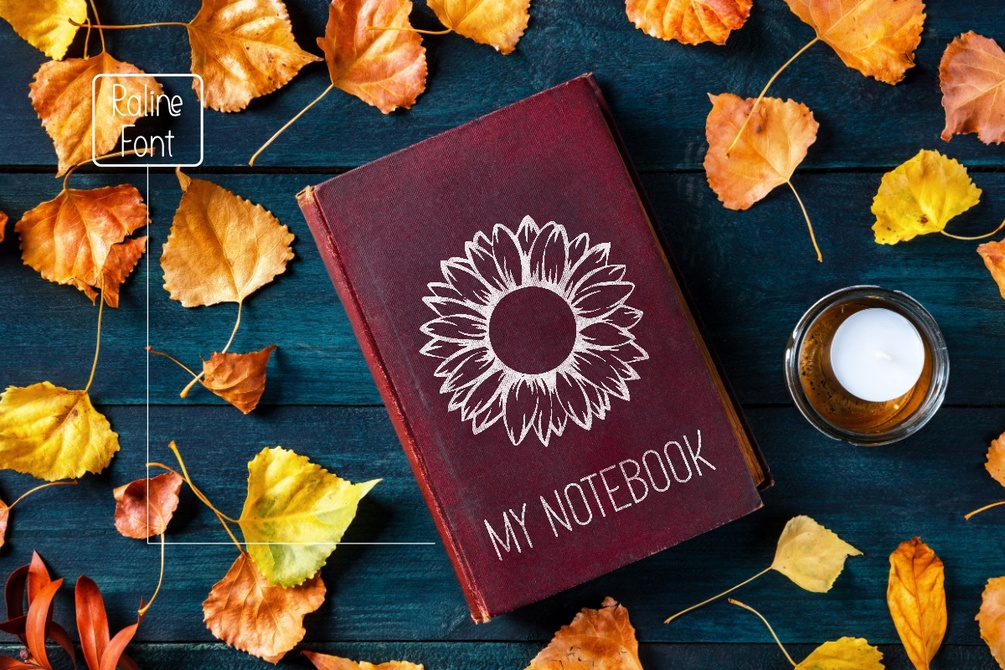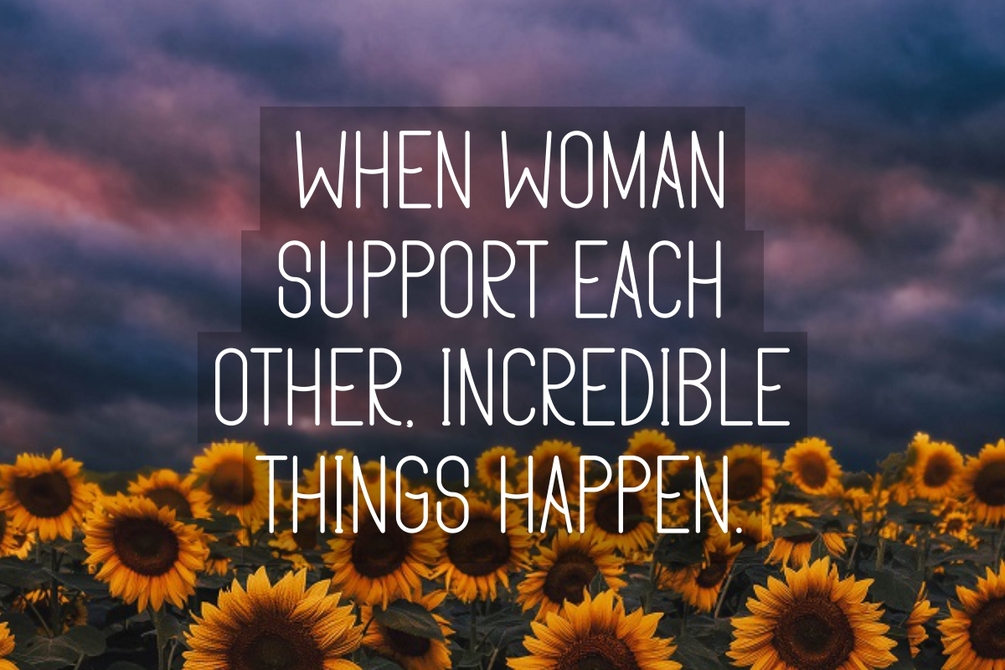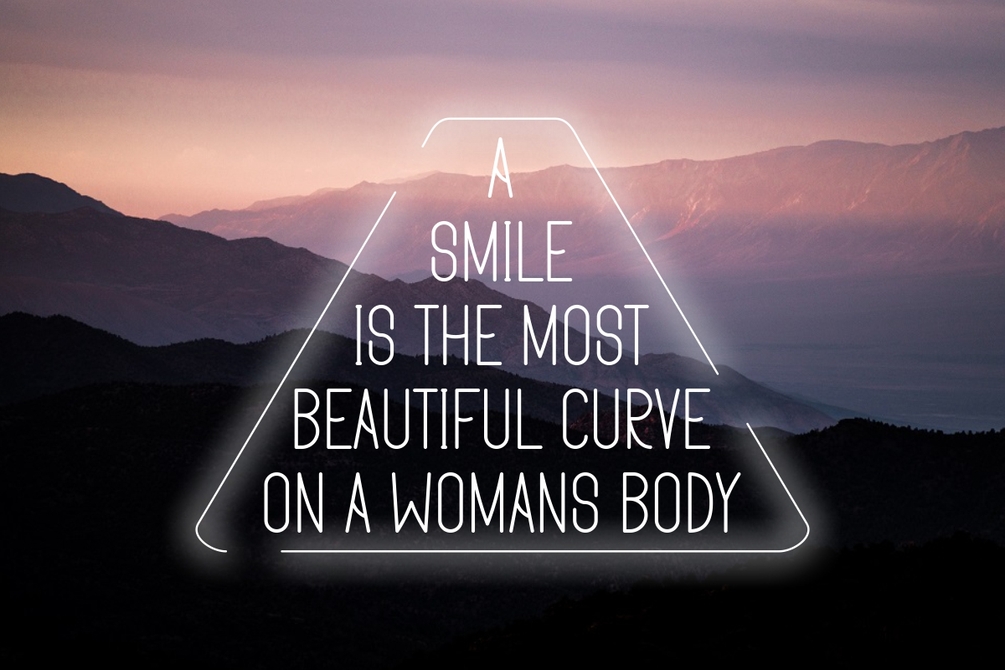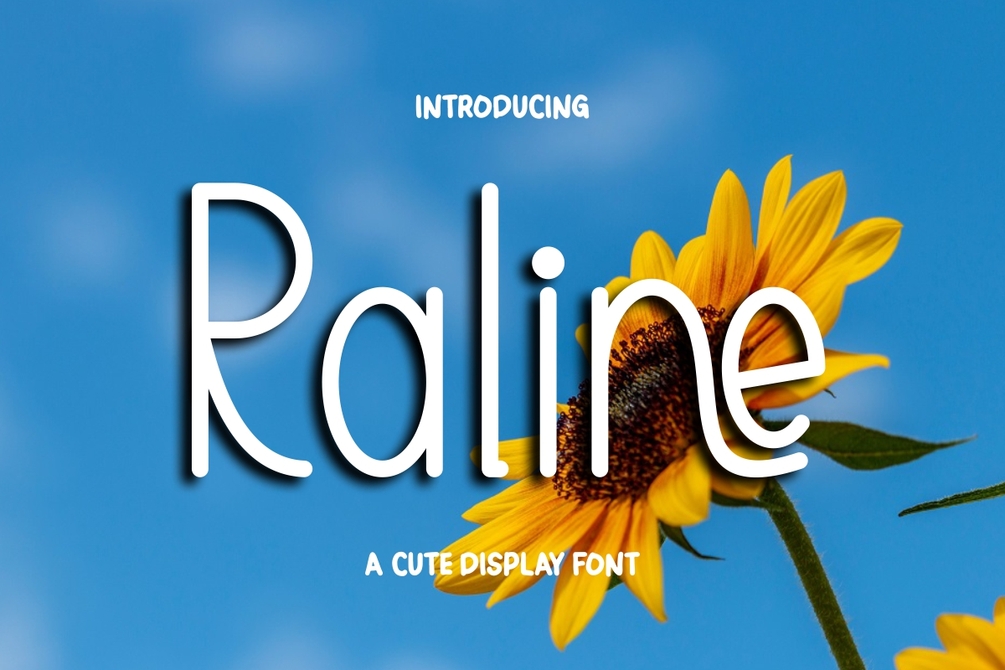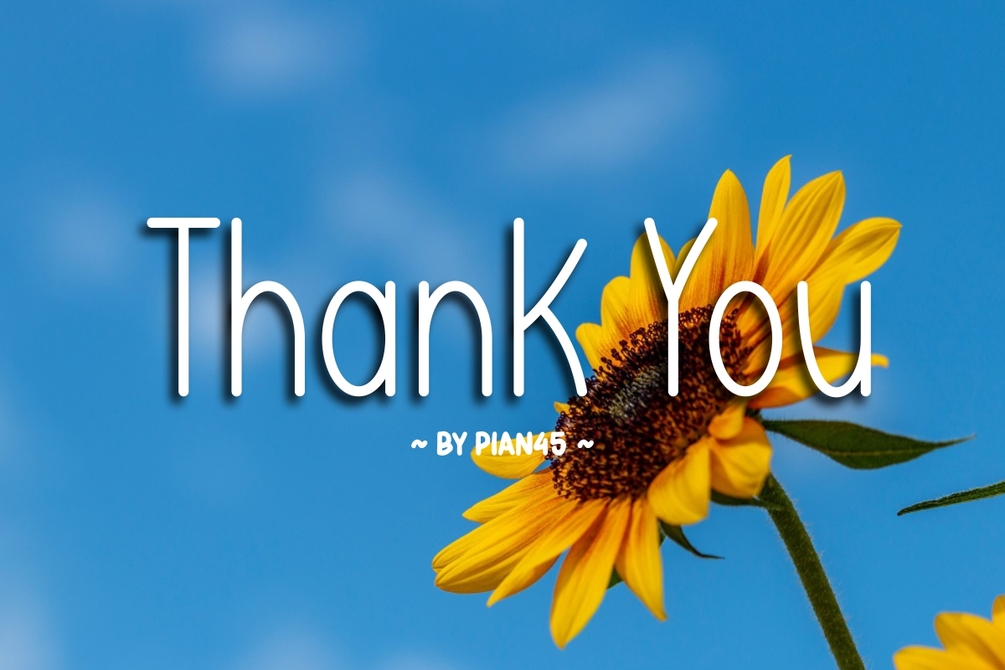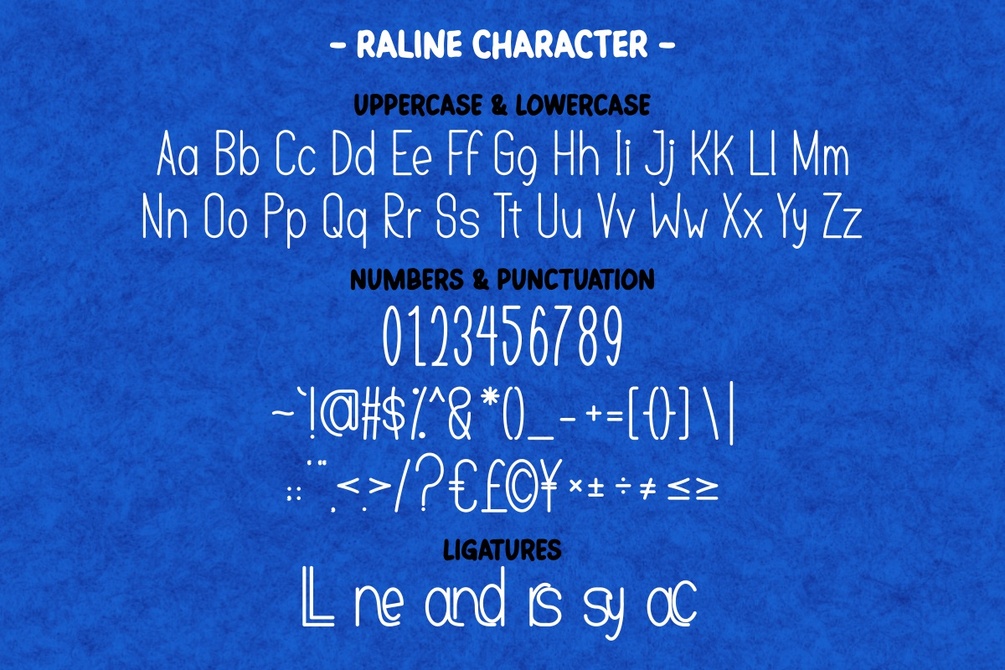
Raline - Cute Display Font
"Raline" is a charming and adorable display font that radiates a sense of playfulness and cuteness. Its delightful letterforms and soft, rounded edges make it perfect for a wide range of creative projects that aim to evoke a warm and friendly atmosphere.
- Uppercase and Lowercase letters
- Numbering, Punctuations and Ligatures